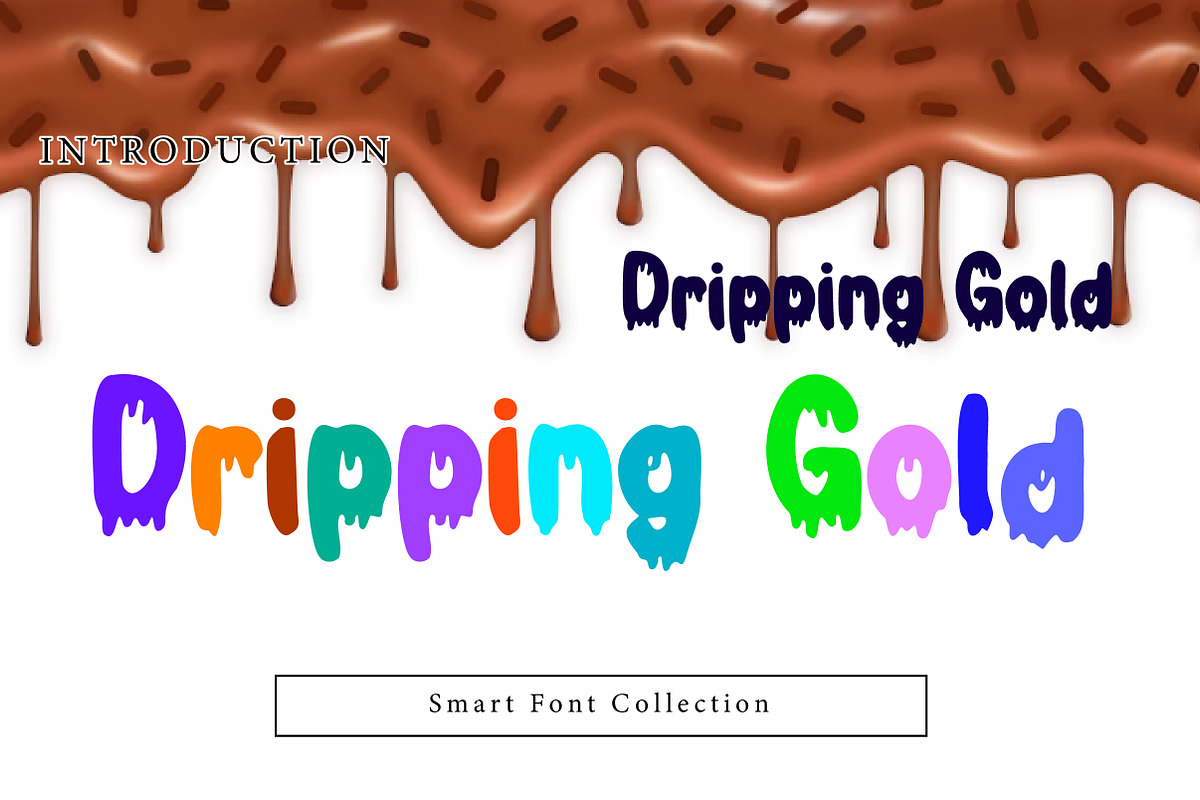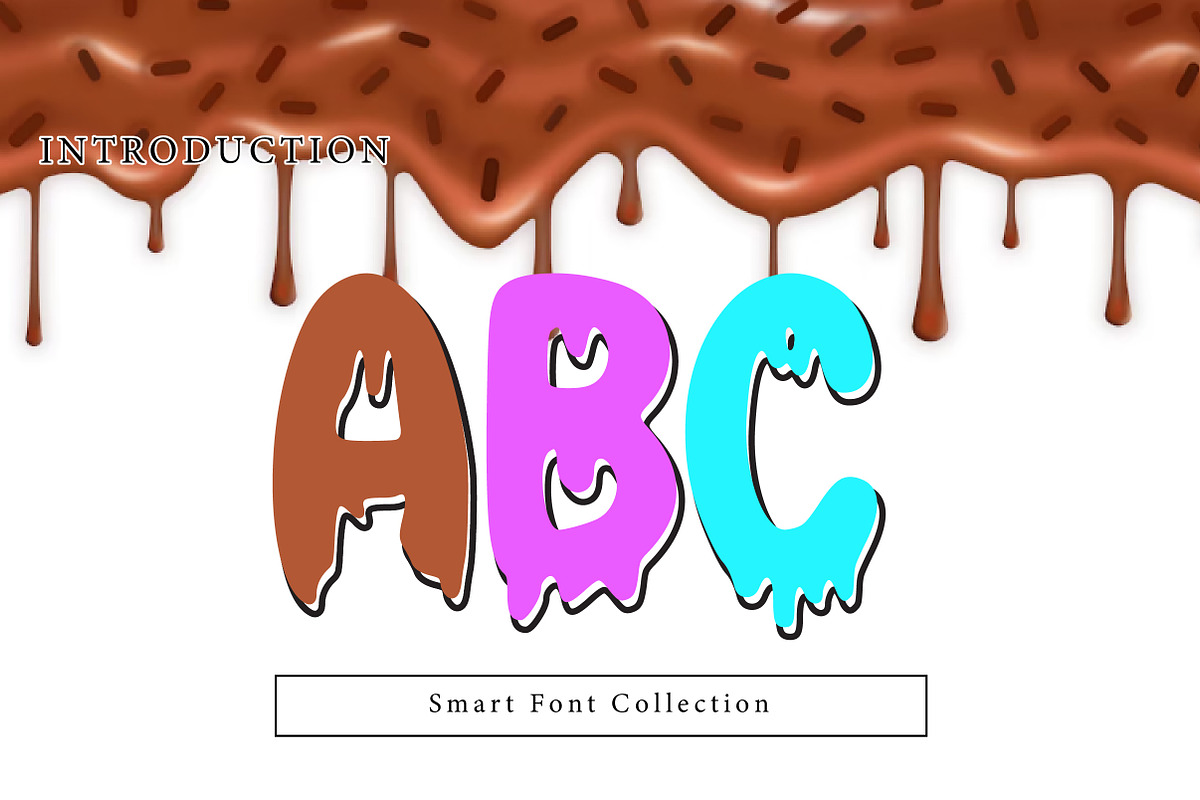
Dripping Gold
Dripping Gold is a bold and stylish dripping display font inspired by liquid gold, melting ink, and luxury horror aesthetics. Featuring thick letterforms with smooth dripping effects, this font is perfect for Halloween posters, luxury branding, edgy logos, music covers, game titles, party flyers, stickers, and social media graphics. Dripping Gold adds a dramatic, shiny, and attention-grabbing vibe that works great for creative designs needing a bold dripping style with a premium feel.